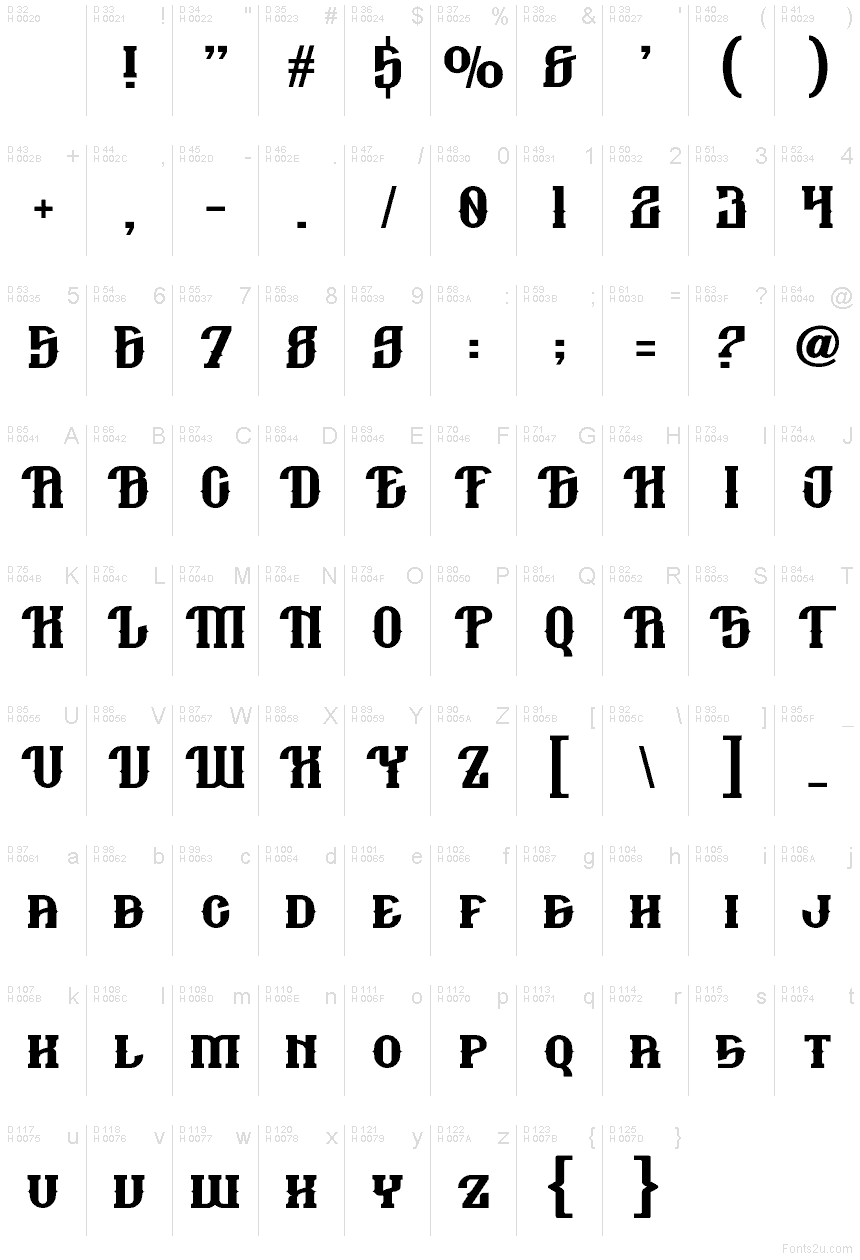
Block Black
Block Black font is a free display font by Gilang Ternadho that draws its inspiration from the Gothic theme. The font’s structure and base are processed to include somewhat medieval style elements inside clear legible modern letters. Despite the dark tone, Block Black keeps an overall blocky appearance with square forms and sharp-angled edges.
Choose this font for your typographic logo design, game interfaces, second-hand used car garages branding/social media posters, car parts magazine covers, fencing training center designs, Esports team identity kit mockups, Twitch TV gaming videos intro/outro captions, Youtube title animations etc.